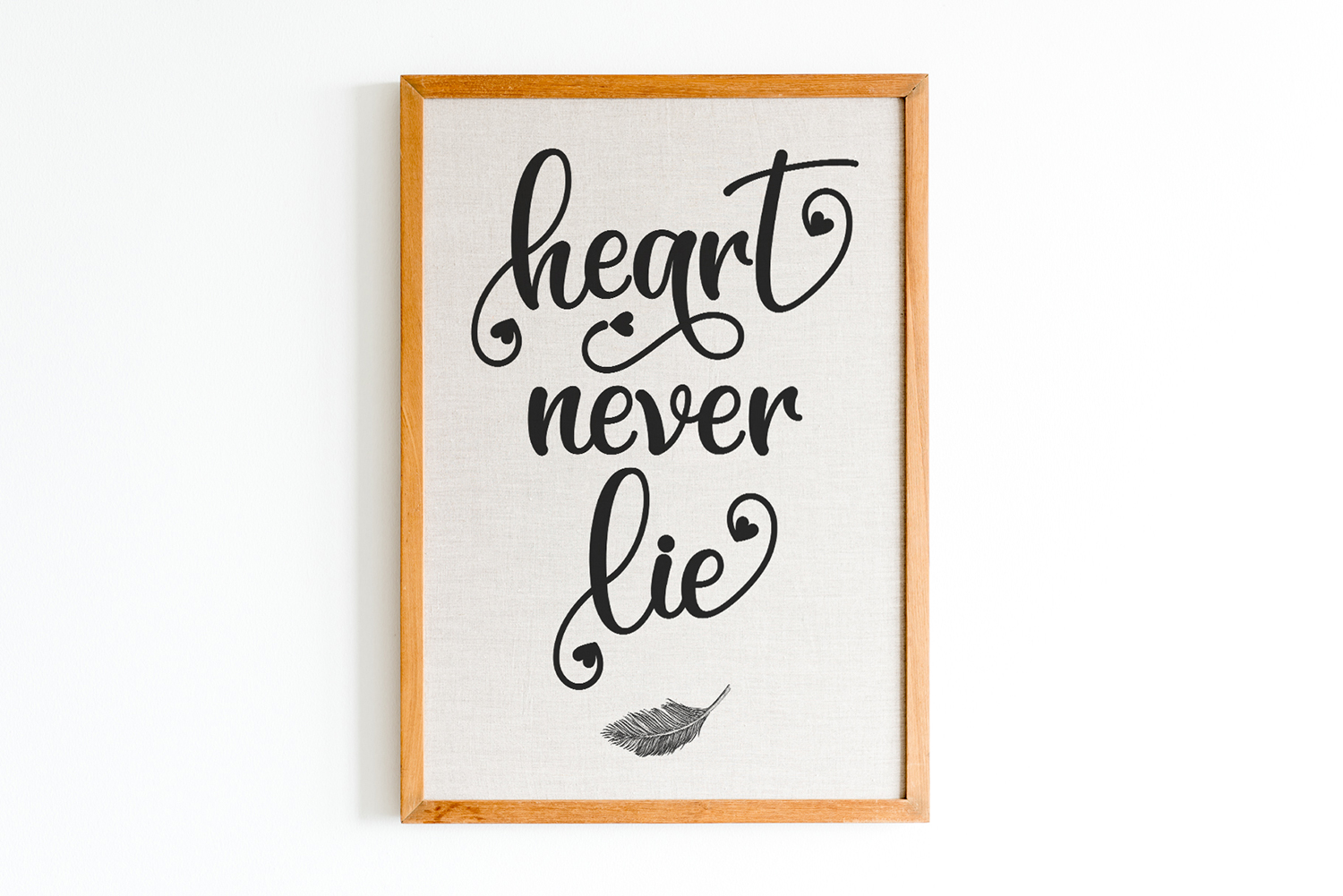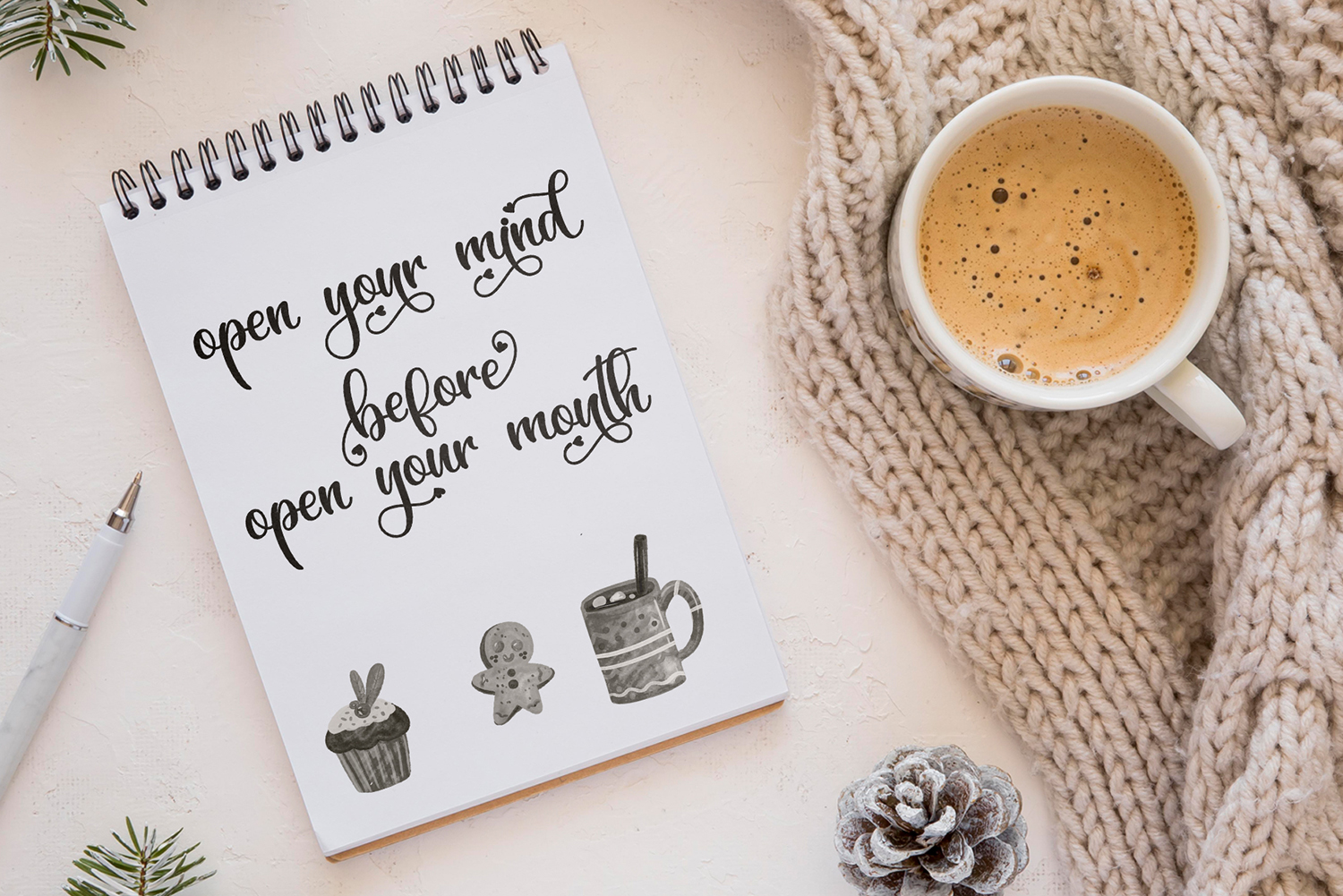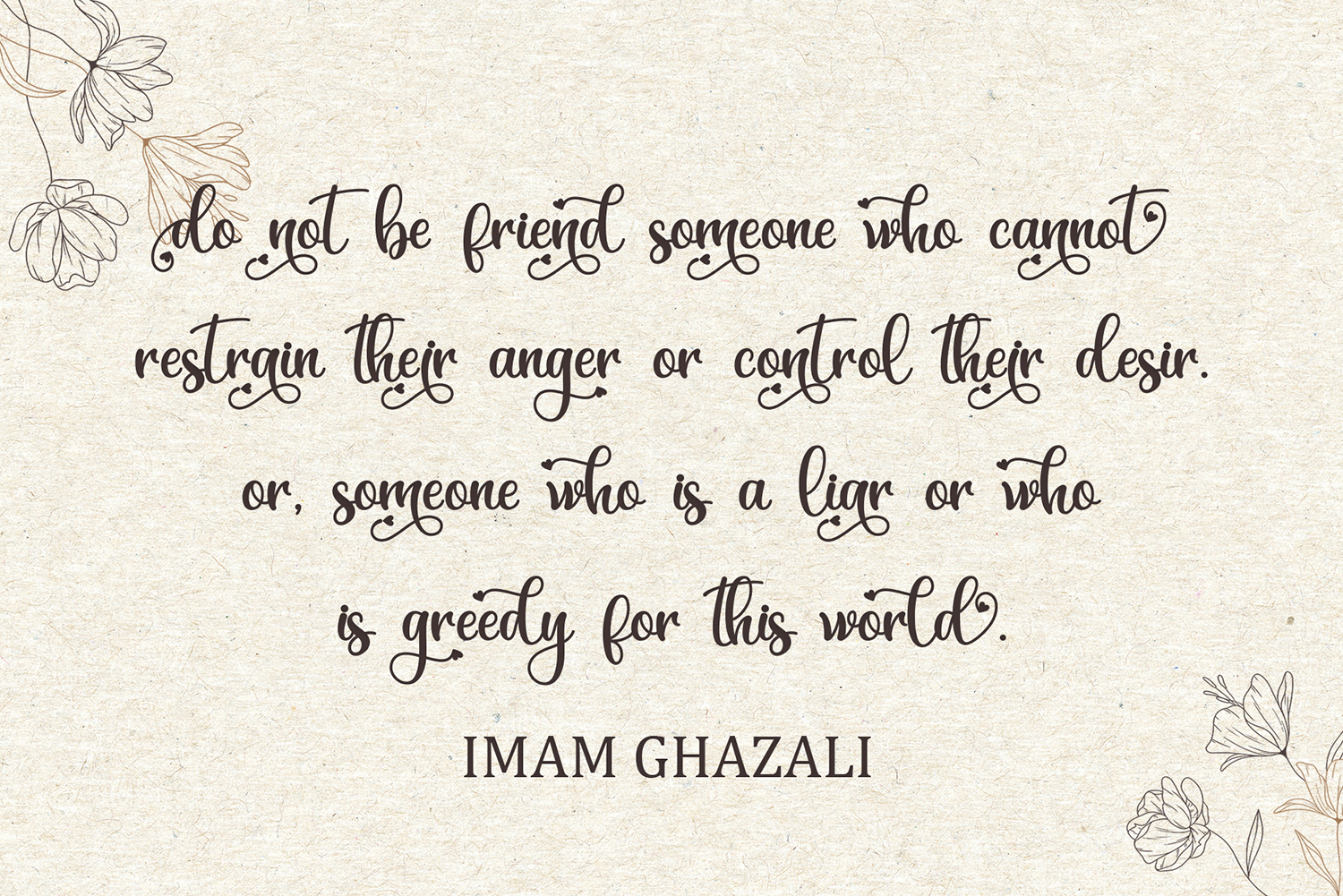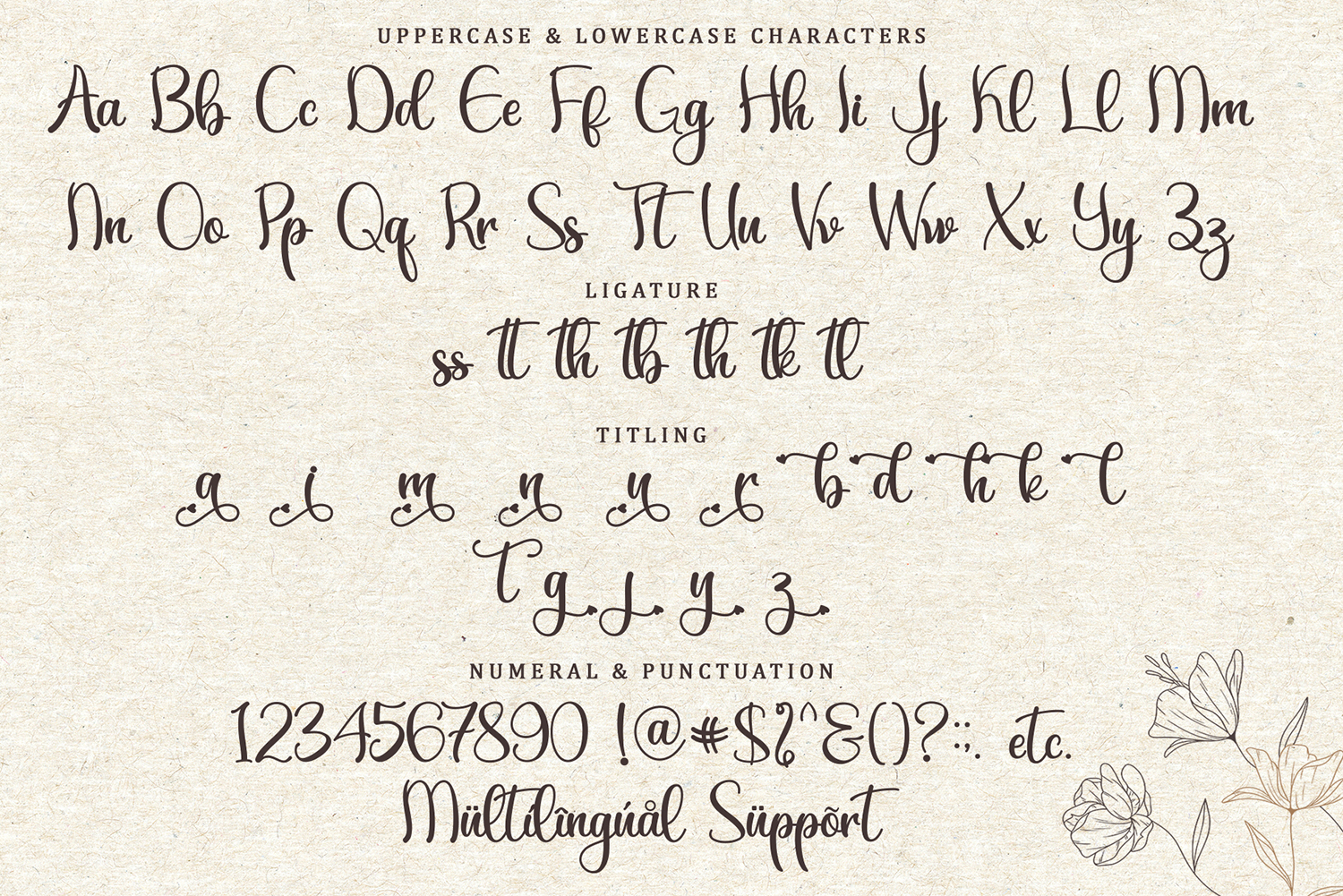
Andyou Free Font
Discover the allure of Andyou Free Font, a charming and refined script font that emanates elegance and sophistication. Meticulously designed for those seeking a beautiful and rejuvenating touch for their designs. This free typeface was designed by a talentedΒ Alif Ryan Zulfikar. If you like it don’t forget to check out the full version.